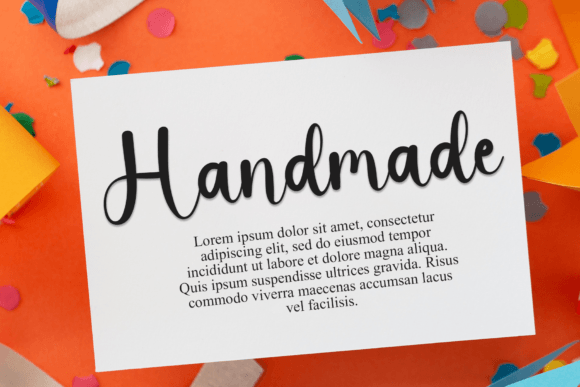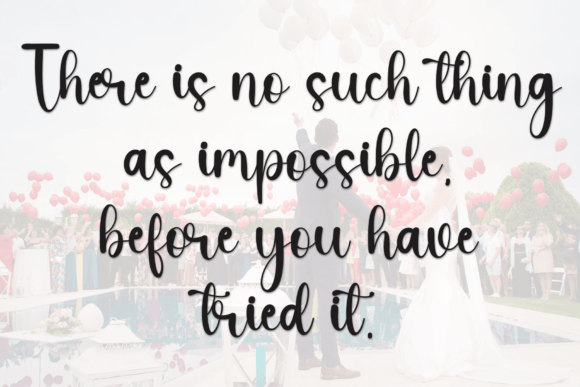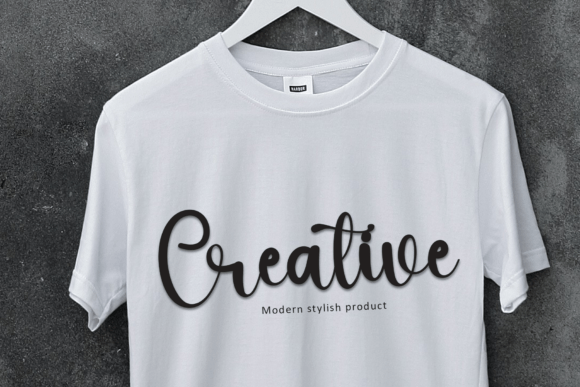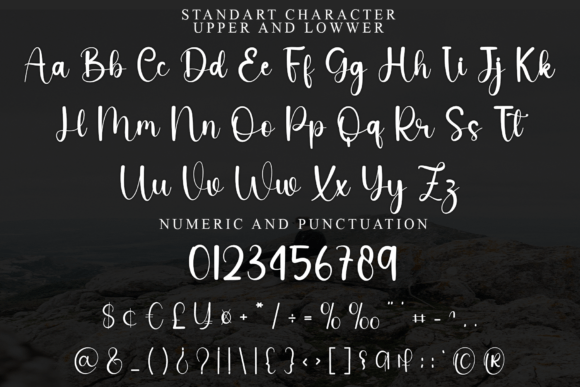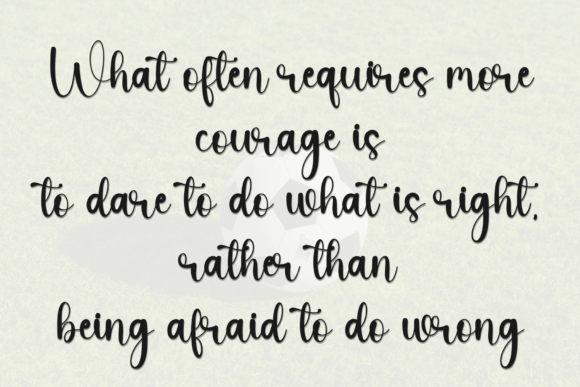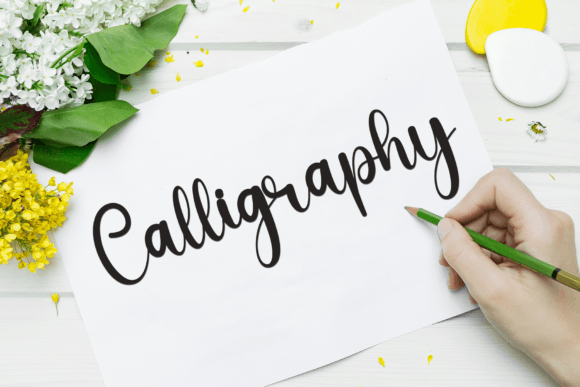
Introduction to Christmas Glamour Font
Christmas Glamour is a casual and creative font that exudes warmth and friendliness.
Key Features of Christmas Glamour Font
Why Choose Christmas Glamour Font?
Christmas Glamour Font offers exceptional quality and versatility, making it a valuable addition to your design toolkit. Whether you’re creating for personal projects or commercial use, Christmas Glamour Font delivers professional results.